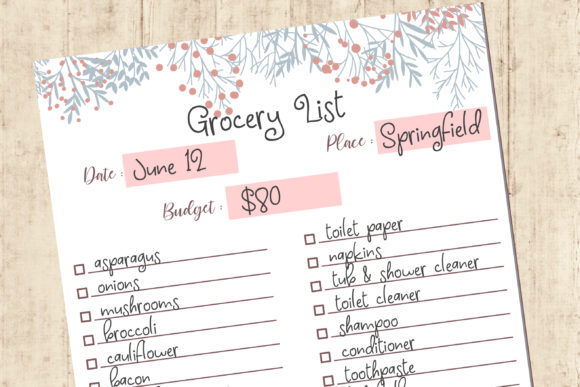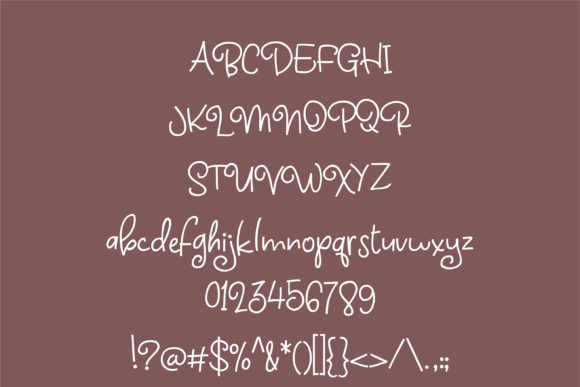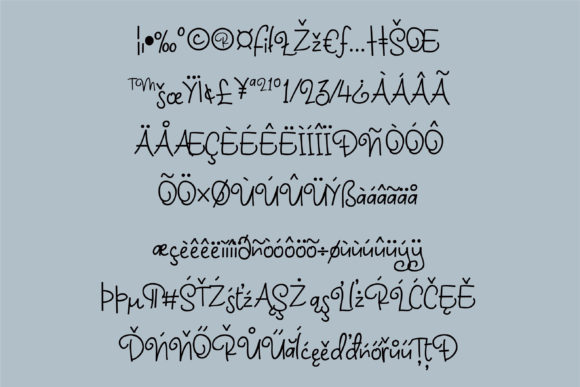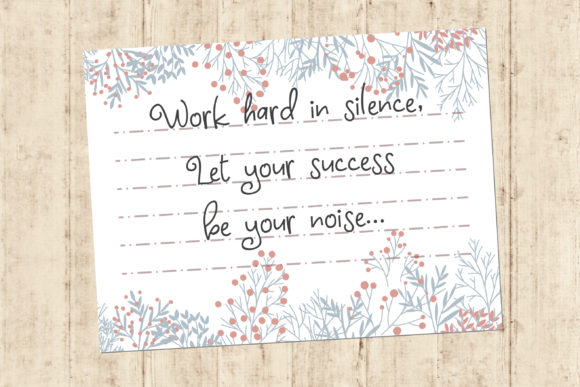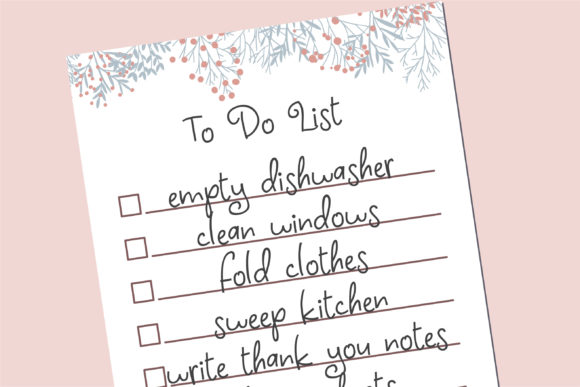
Supermarkt Font
About Supermarkt Font
Supermarkt is a casual, relaxed and flowing handwritten font. Its simple and neat style makes this font adept to a wide variety of creative ideas, both formal and non-formal.